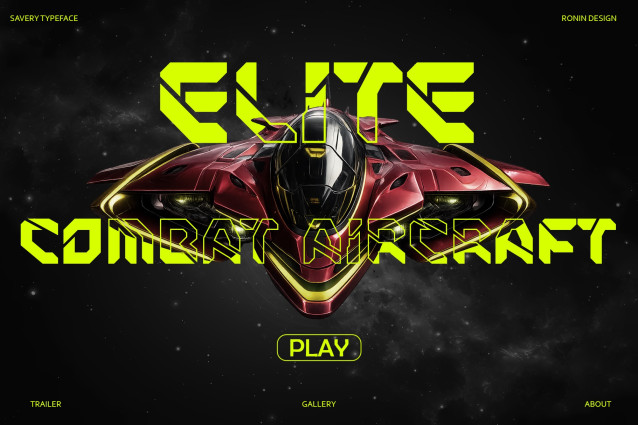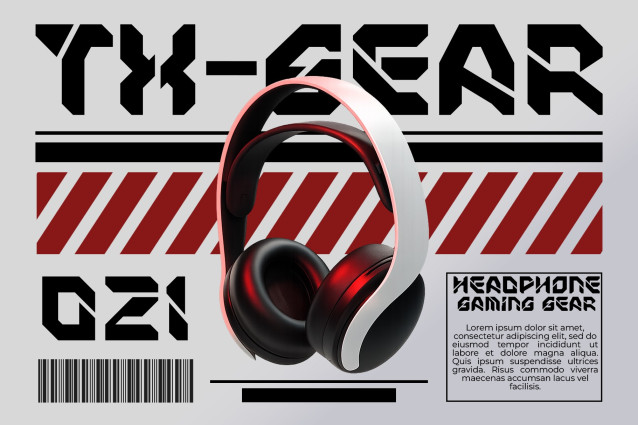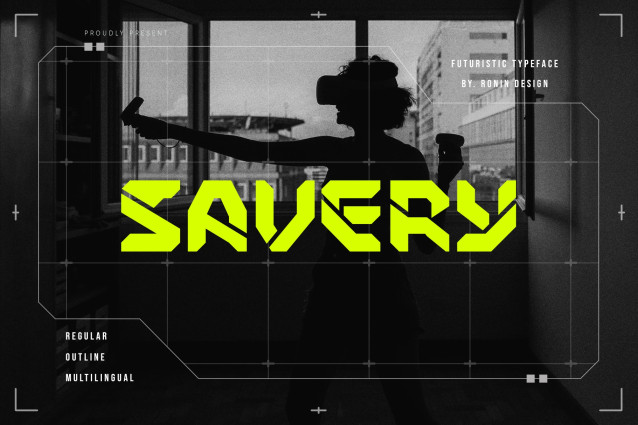
Savery Font
Savery Font is a bold futuristic display typeface built for modern digital aesthetics. It delivers a strong cyber-tech presence that instantly feels advanced, sleek, and powerful. Savery structured letterforms create a solid sci-fi atmosphere, making it perfect for gaming titles, technology branding, esports visuals, cyberpunk posters, UI headlines, music covers, and futuristic product campaigns.